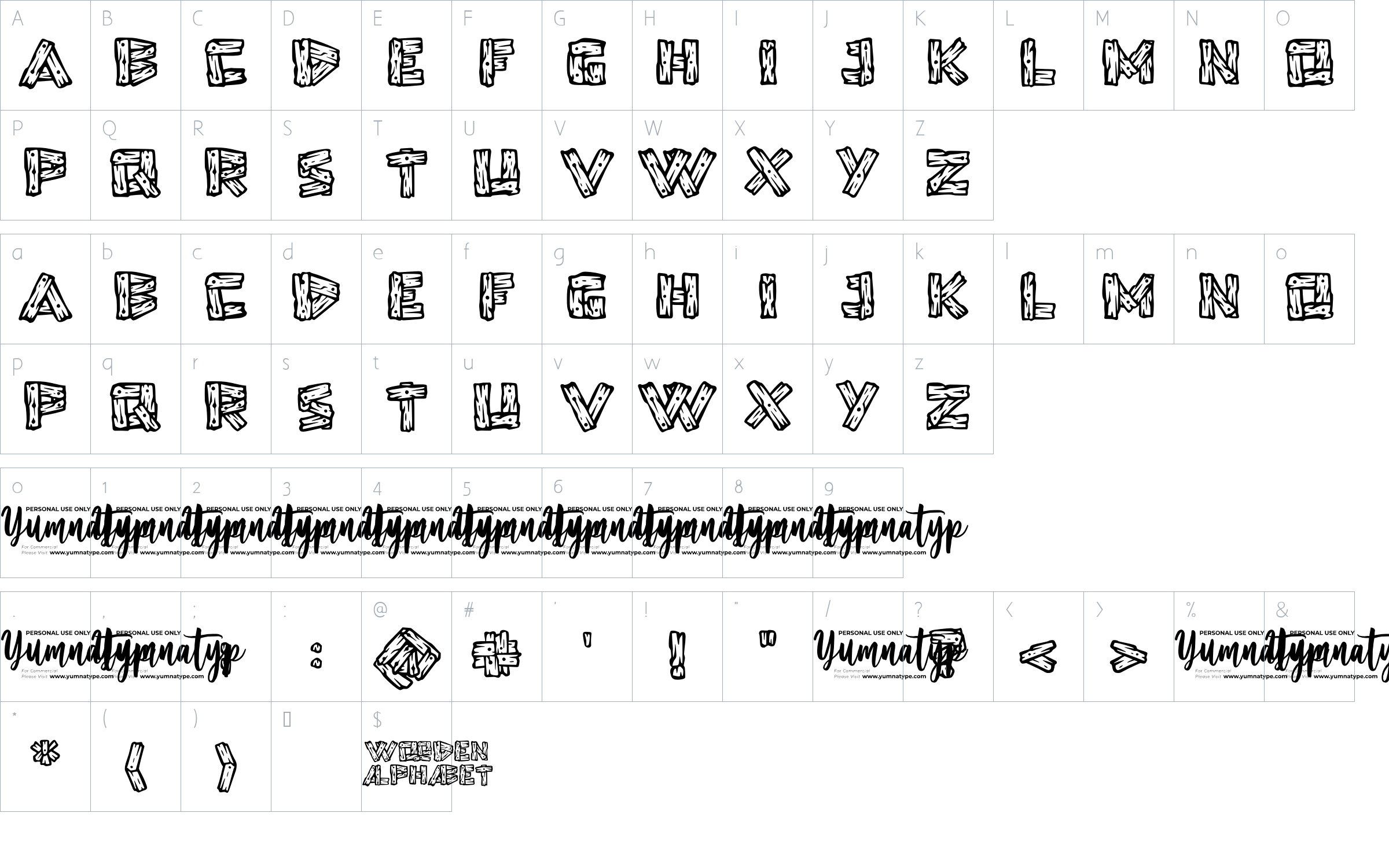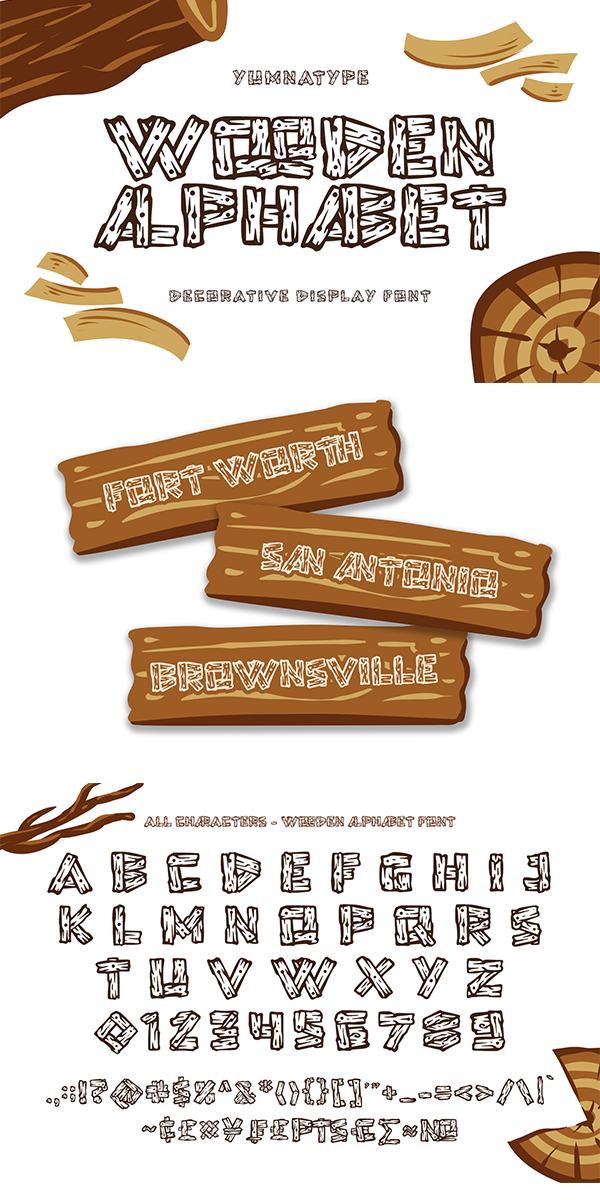
Wooden Alphabet Font
About Wooden Alphabet
Wooden Alphabet excels at the ability to create natural impressions and warm nuances in order to make your designs look interestingly different for increasing the product’s attractiveness. Such a wood-themed font is a perfect match for any nature, environment, or organic related products. To be greatly legible, you can use it for big text sizes. Wooden Alphabet provides a clipart in accordance with the font theme as a bonus and features you can enjoy.
Wooden Alphabet fits best for various design projects, such as brandings, headings, magazine covers, quotes, printed products, merchandise, social media, etc. Find out more ways to use this font by taking a look at the font preview.